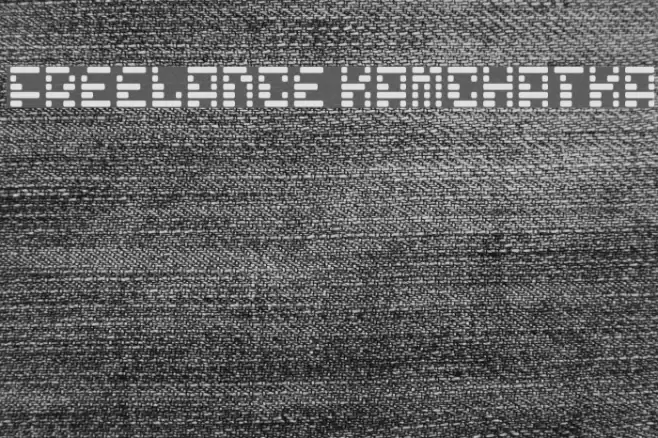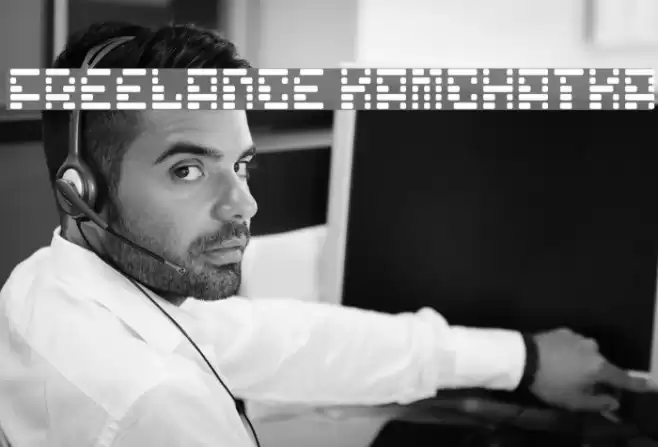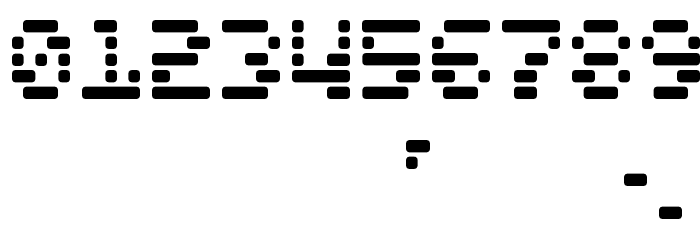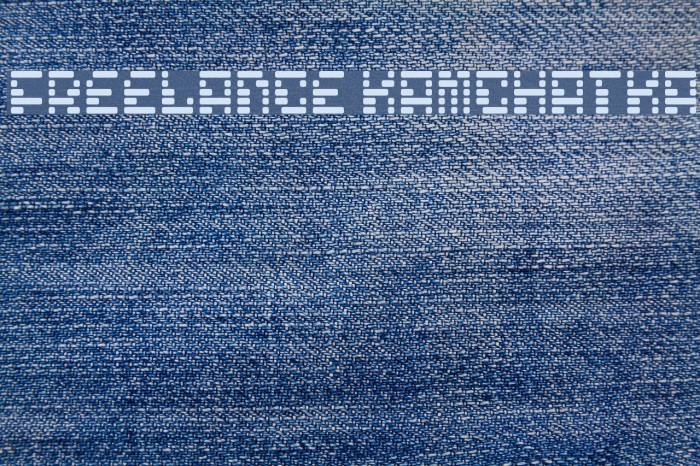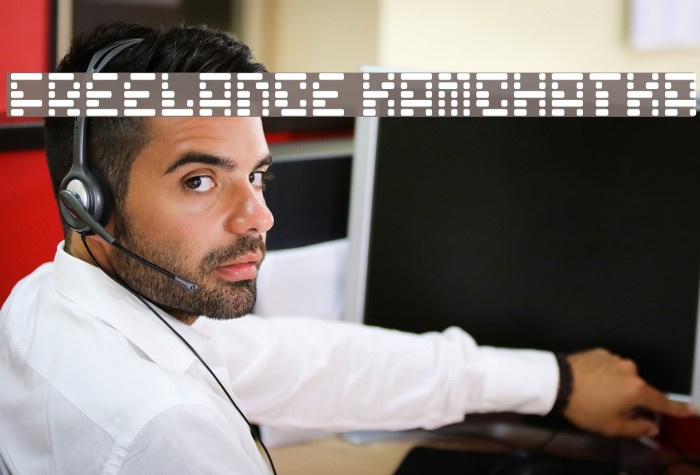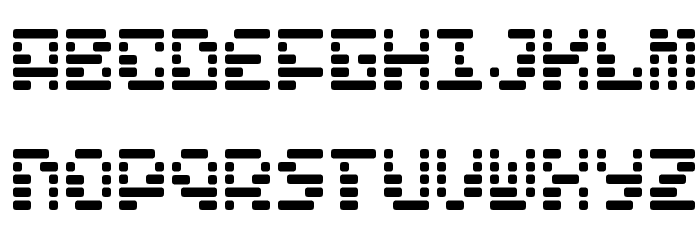
Freelance Kamchatka Font
Freelance Kamchatka Description
This font features a unique, futuristic design composed of bold, rounded dots and lines that form each character. The geometric structure gives it a digital, tech-inspired appearance, reminiscent of LED displays or pixel art. The uppercase and lowercase letters maintain a consistent style, with the lowercase being slightly smaller in size. Numbers and special characters follow the same design principles, ensuring uniformity across the font. The overall look is modern and eye-catching, making it suitable for projects that require a distinctive and innovative typeface.
A futuristic, dot-based font with a tech-inspired, geometric design from Dotted fonts.
- Proposed Projects: Ideal for digital art, tech branding, futuristic posters, and innovative product packaging.